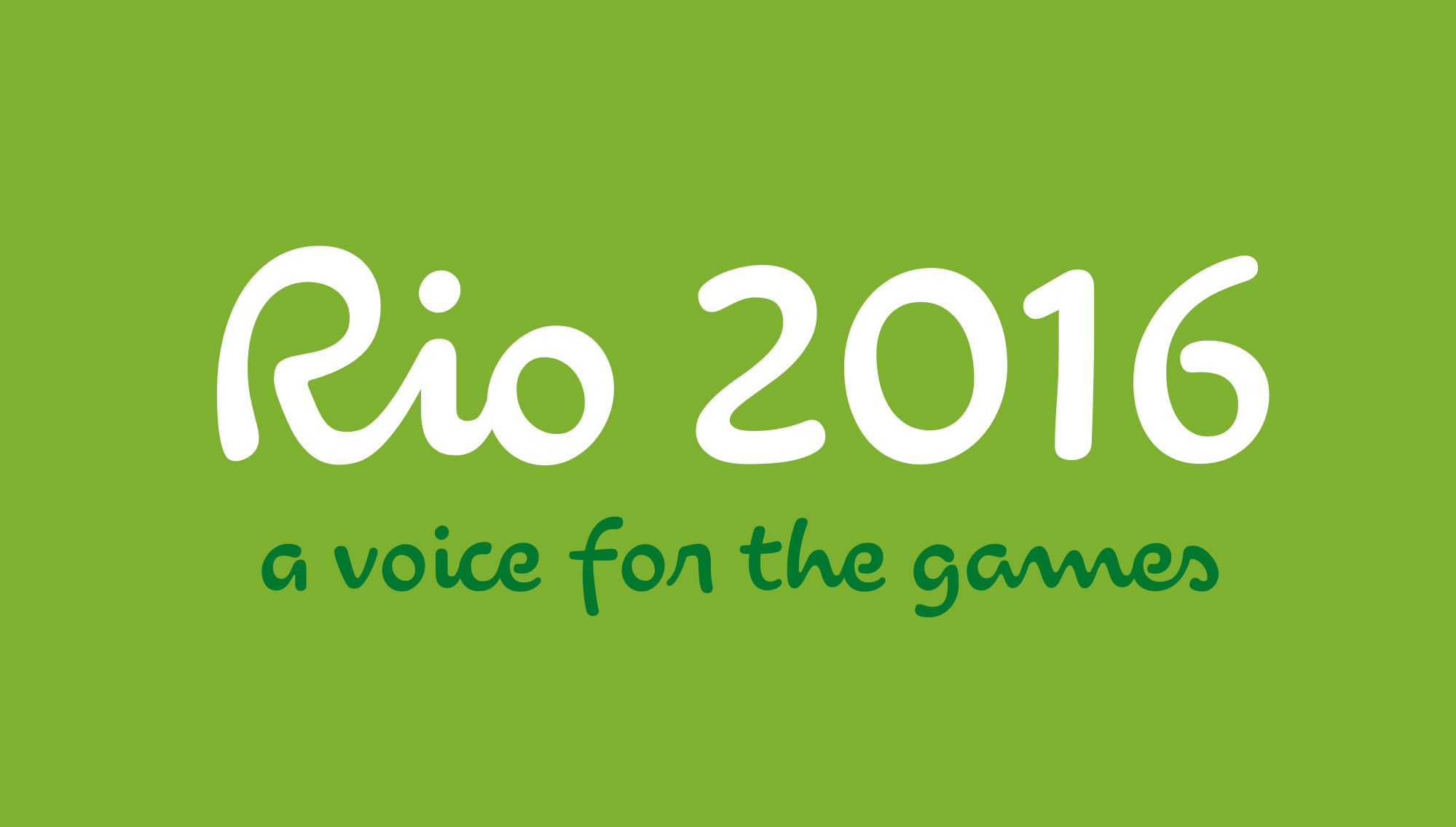
Type design studio Dalton Maag on why digital brands are opting for custom typefaces
Netflix unveiled its custom typeface ‘Netflix Sans‘ last week. The video streaming service is yet another digital company choosing to design a custom typeface in-house, rather than paying millions in font licensing fees. The cost is no secret. Netflix, who worked with type design studio Dalton Maag to create the unique font, says with the global nature of its business, font licensing can get expensive. But is it the best idea for everyone?
We looked at eight other digital brands that have chosen to design bespoke typefaces in-house, including BBC’s Reith which launched at the end of 2017, Samsung, Apple, Google, USA Today and Nokia. At least three of these brands opted to collaborate with Dalton Maag. The type design studio works with clients and their design agencies to modify and develop typefaces for print, desktop, app and mobile environments. Previous clients of Dalton’s also include BMW Intel, HP, Lush and AT&T.
In this feature Dalton Maag operations director Richard Bailey explains what fees are involved designing a custom typeface and what the collaboration process looks like. He also explores why some foundries are moving towards ‘impression-based licensing’ – a relatively new approach – for typefaces in many digital advertising spaces.
Why commission a custom typeface?
When a digital brand such as Netflix commissions a custom typeface design, it’s usually due to a mixture of reasons involving functionality and cost, says Richard.
Sometimes it’s a matter of not being able to find the right expression or functionality from “off-the-shelf” fonts, language coverage problems or legibility – or simply wanting a font that can be an “owneable” part of their brand.
Dalton Maag begins its custom font development process with a collaborative workshop.
“Stakeholders from the client and their design agency help us explore the brief, look closely at their creative expression, and identify the practical problems that they need to solve.
“Throughout the development process the aim is to try to ensure that all stakeholders are happy with the direction in which we’re heading and with the decisions being taken,” says Richard. “We want people to want to use the fonts when they roll out.”
A “small-end” project – such as a single weight, English-only font – could take around six weeks from initial sketches to delivery of the final font file.
But a typical project usually includes Roman and three Italic weights, providing coverage for the Latin-script languages of Western Europe. This project would take three to four months from first workshop to final delivery. Longer projects can take up to a year. Each process also includes screen optimisation and client feedback time.
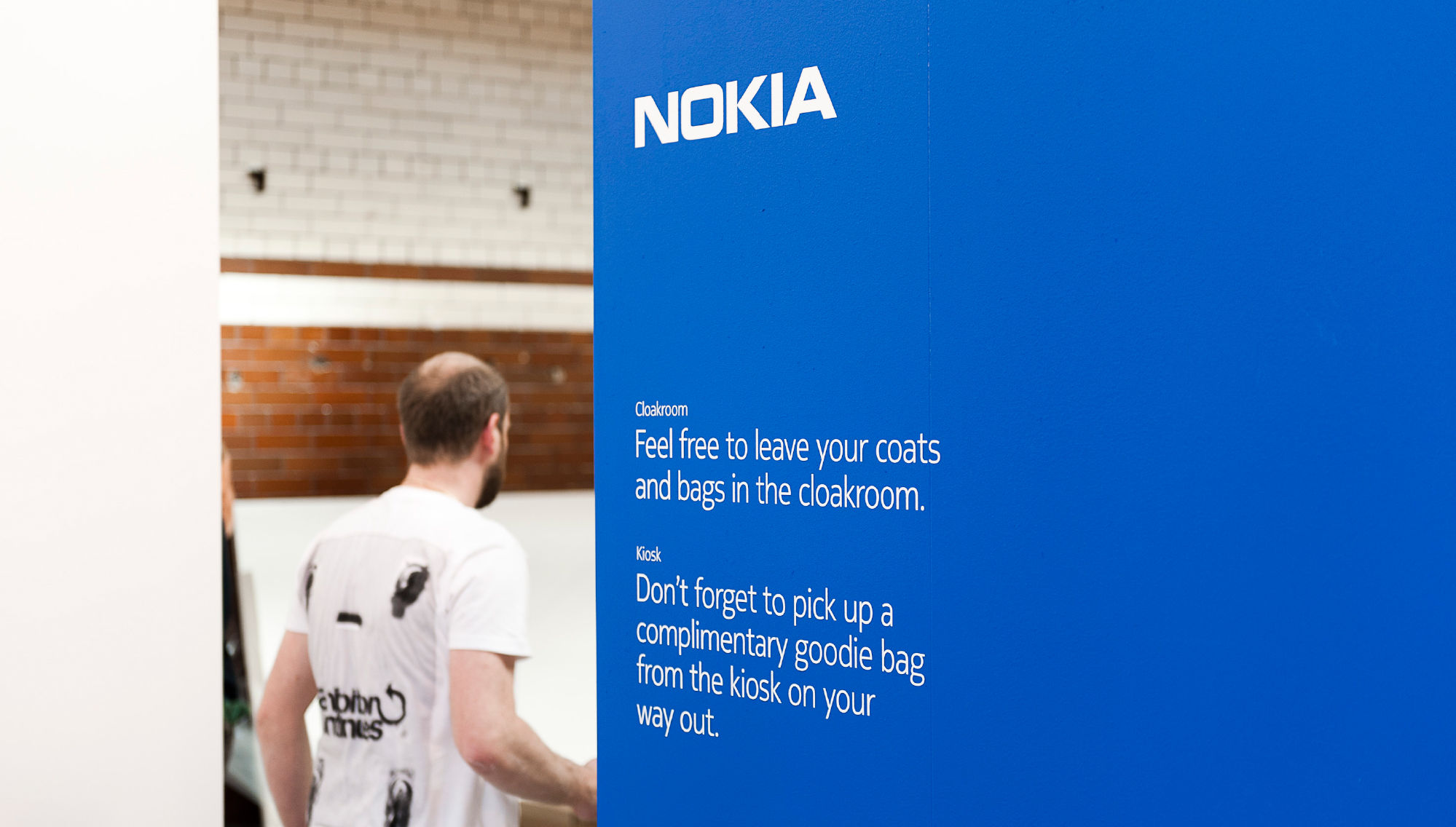
What costs are involved in designing a custom typeface?
For custom font development, Dalton Maag charges for studio time only, with all intellectual property being transferred to the client as part of that fee. The studio has no licensing fees, no limits on how the client can use the fonts, and no requirement to choose Dalton Maag for future extension of the fonts.
Other studios may separate pricing into execution and licensing/IP fees.
However, whether or not a custom font works out to be less expensive than licensing depends on how a brand will use it, says Richard.
“Every font foundry is different but typically the more users of the fonts, and the more exotic the media in which the fonts are to be used, the higher the licence fees,” he says.
“As our approach to custom font development is a fixed-fee regardless of how the fonts will be used, there is almost always a size of user base, scope, or diversity of media at which custom becomes more cost effective than licensing, and the savings increase from there.”
Although Richard says brands still can end up with fonts that can look great but can’t be used thoroughly without “additional and sometimes substantial fees”.
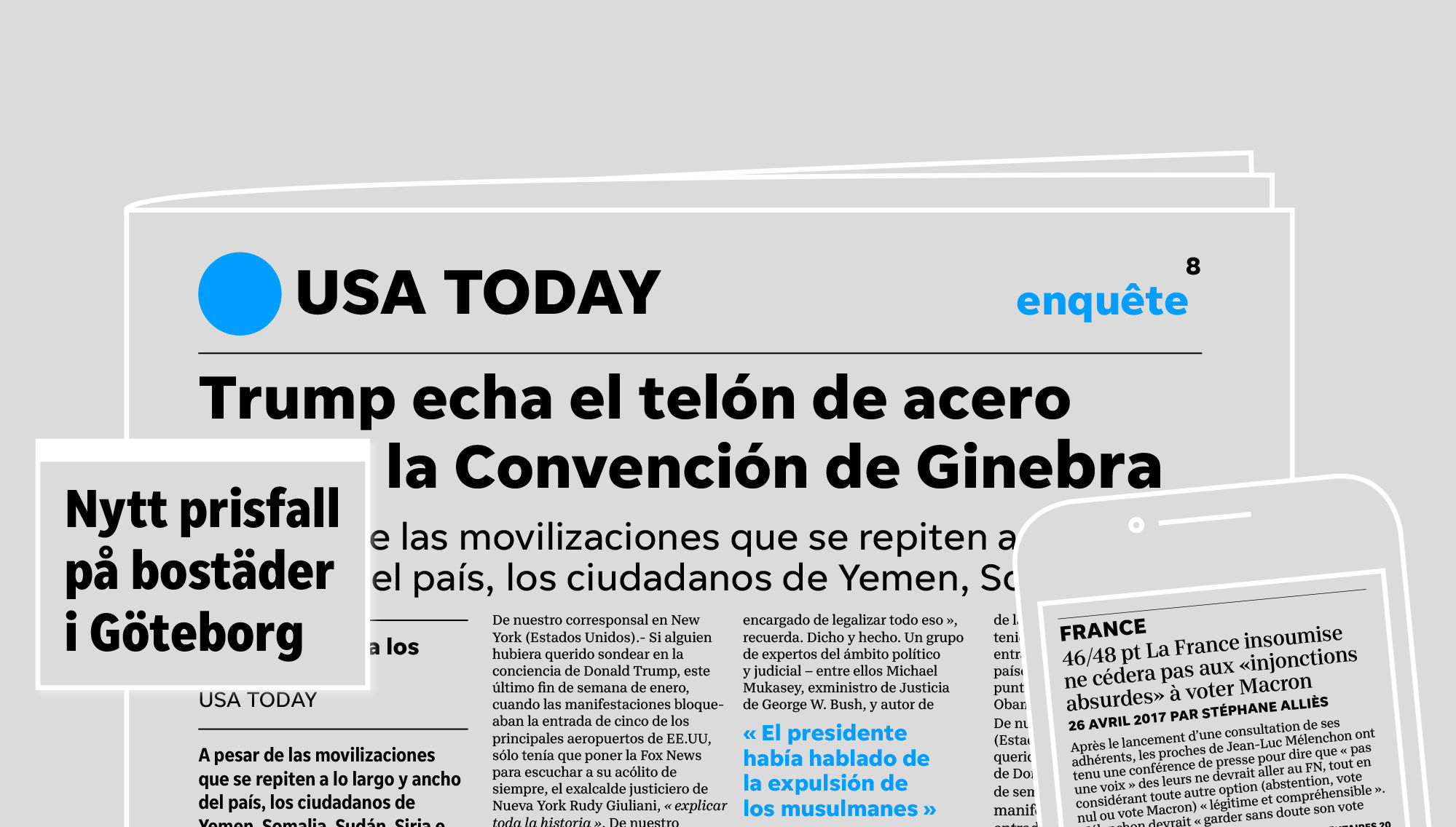
Custom typeface versus font licensing
If you’re a digital brand weighing up the cost of font licensing over designing a custom typeface, start talking to an experienced typeface design studio as early as you can. This will help you to explore your options and listen to practical advice.
“Custom font development isn’t always the right solution and we don’t steer every enquiry towards it as an answer,” says Richard.
If you’re about to say yes to a licence agreement, check you’re not limiting your future options, and check what happens if your requirements grow over time.
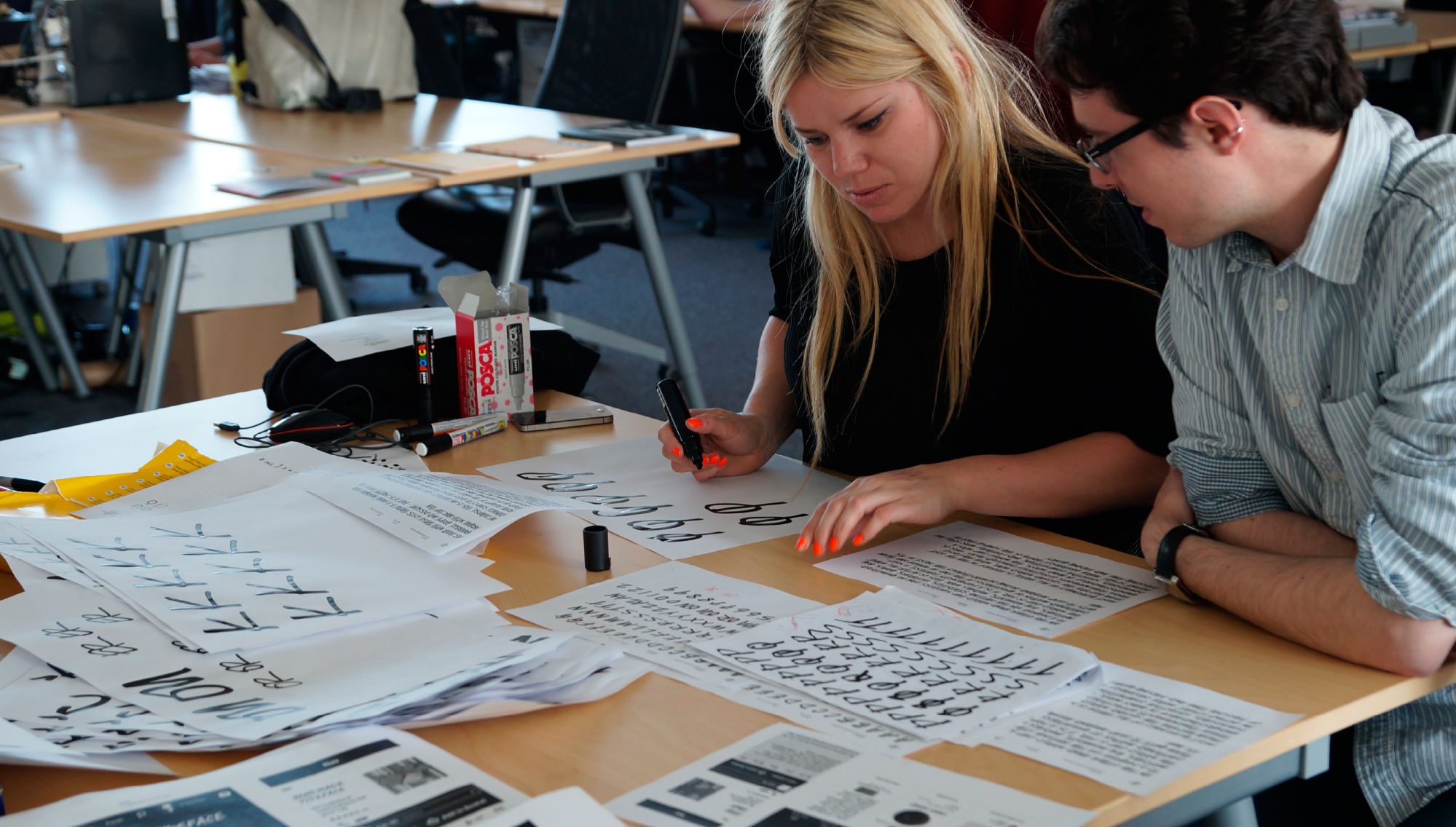
What’s impression-based licensing?
Impression-based licensing for digital media is a relatively new approach used by some foundries, Richard says. Essentially it’s paying more for wider “use”.
Digital font libraries offering impression-based licensing for digital ads include Linotype and MyFonts, both owned by Monotype.
If you licence a font you’re not just paying for the specific file you download, you’re making “a small contribution to supporting the development of the whole library”, Richard explains.
“For this to be a sustainable model for a font library, and for fonts to remain accessible to all, there does need to be an element of paying more to use it more.”